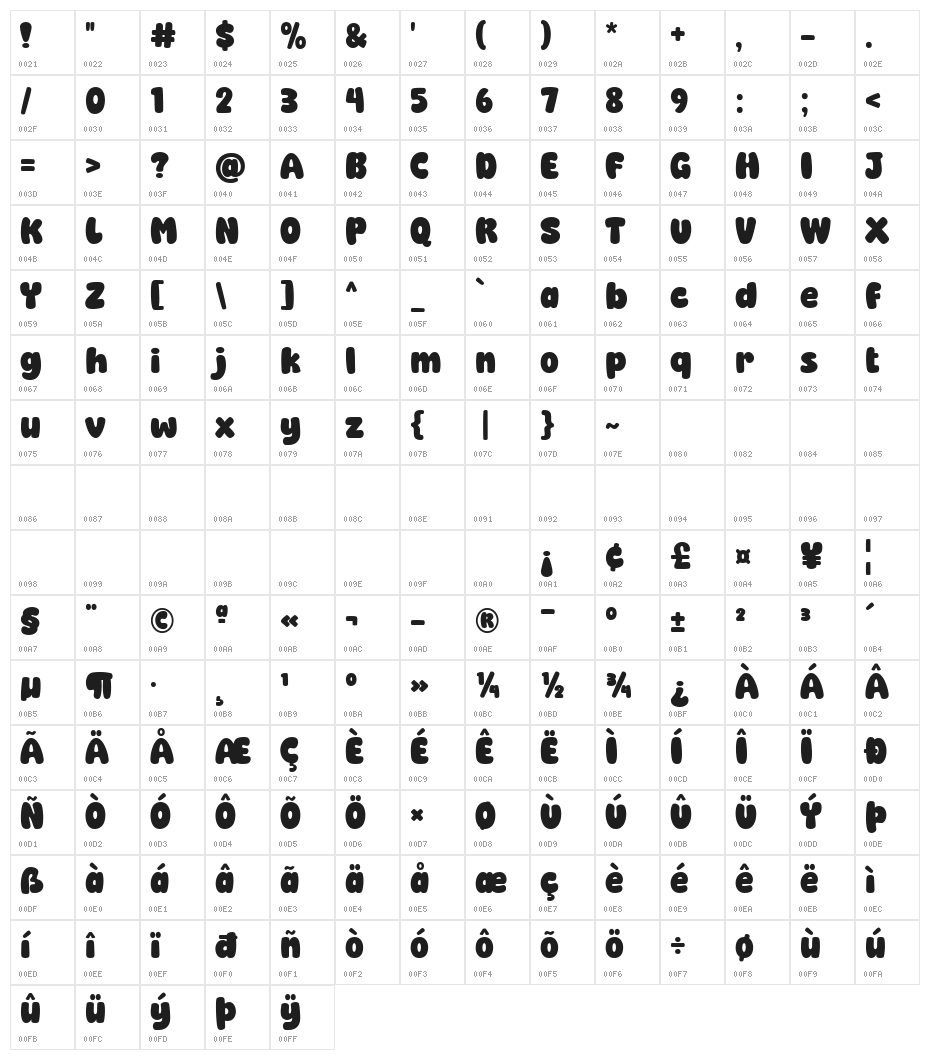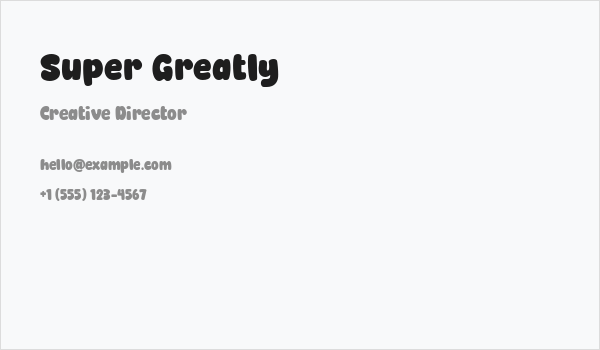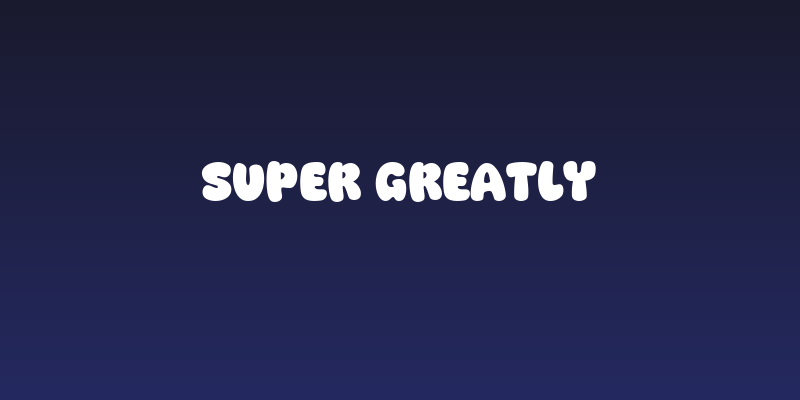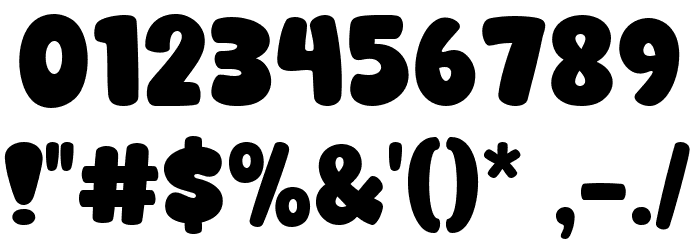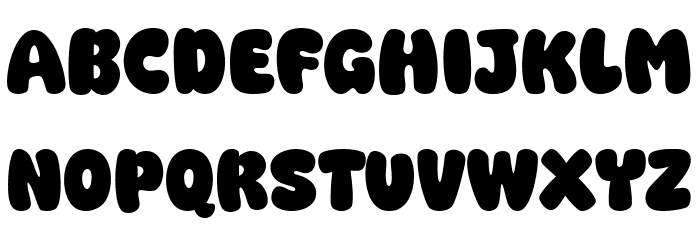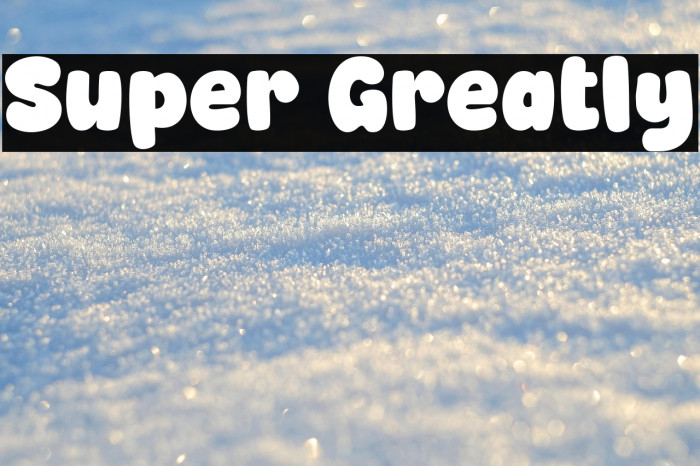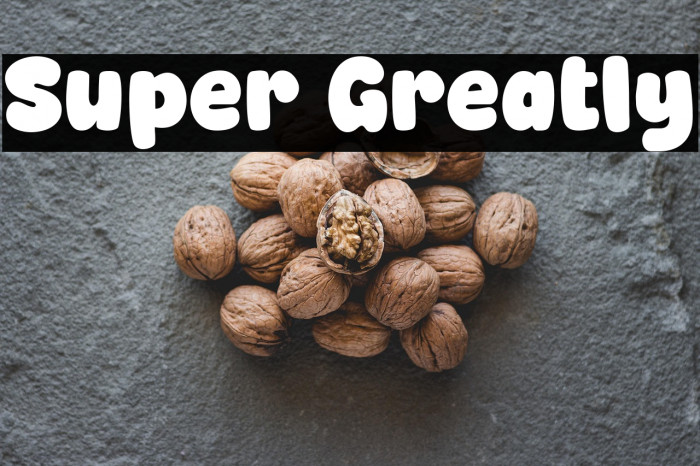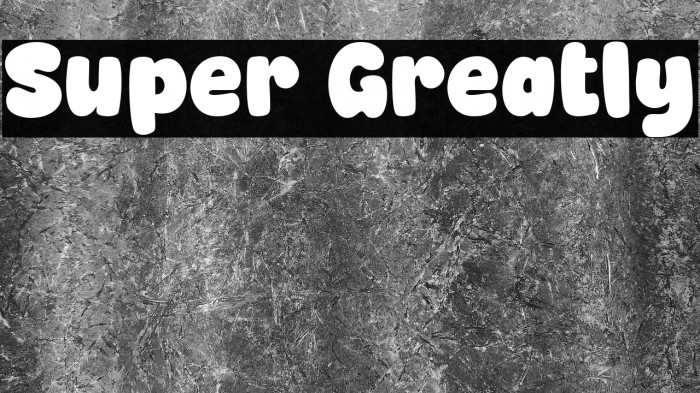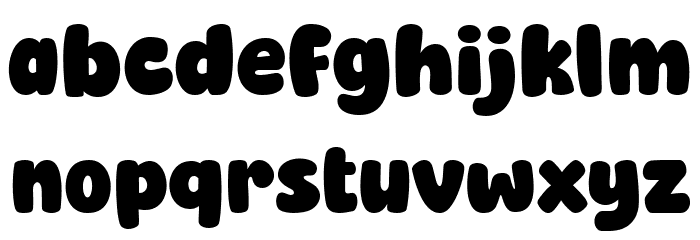
Super Greatly Font
Super Greatly Description
This font features bold, rounded characters with a playful and bubbly appearance. The letters are thick and uniformly weighted, giving them a strong presence on the page. The rounded edges and lack of sharp angles contribute to a friendly and approachable feel. The font maintains consistent spacing between characters, ensuring readability while preserving its whimsical style. It includes a full set of uppercase and lowercase letters, numbers, and a variety of special characters, making it versatile for various design needs.
| Proposed Projects | Ideal for children's books, playful branding, party invitations, and casual posters. |